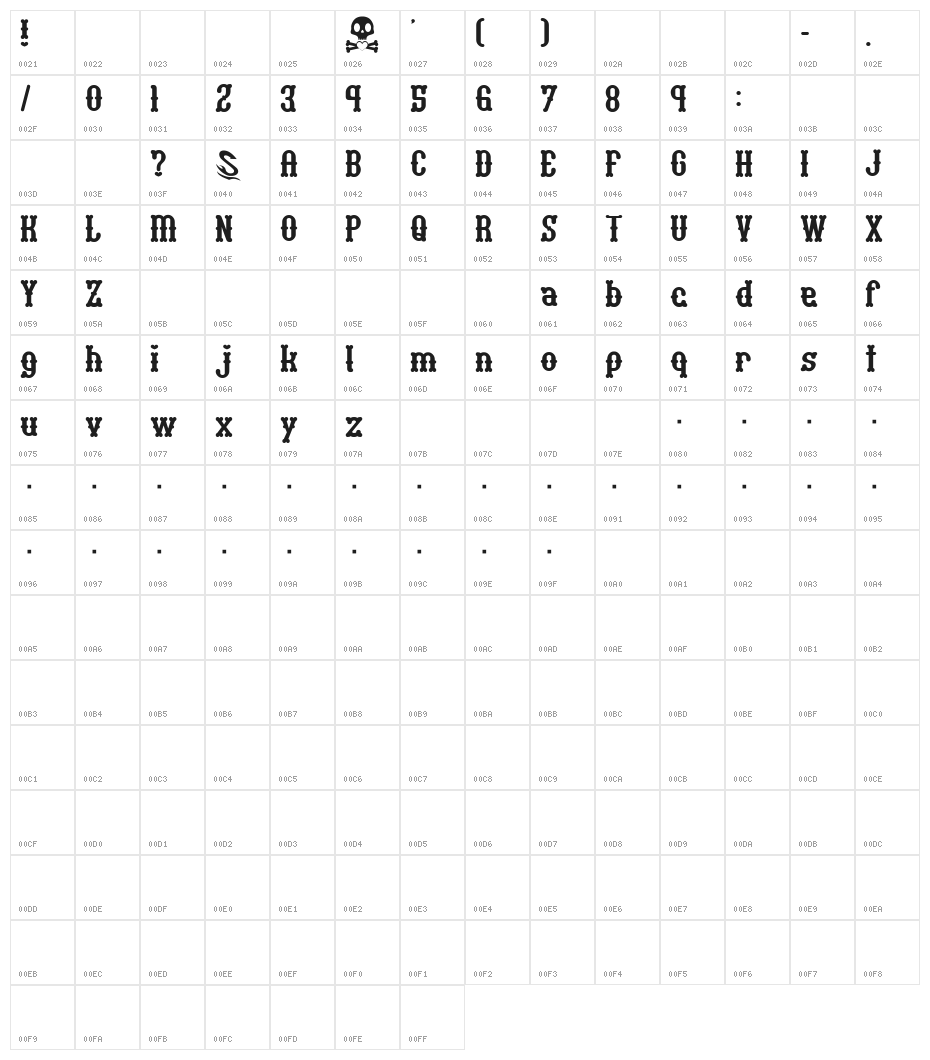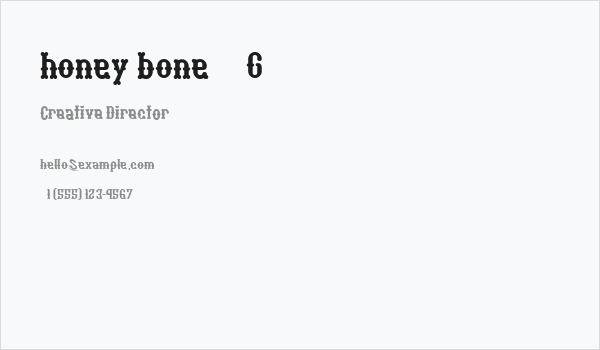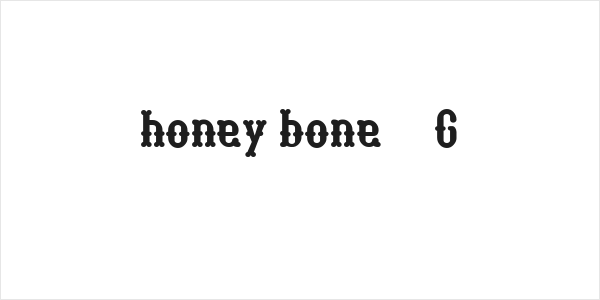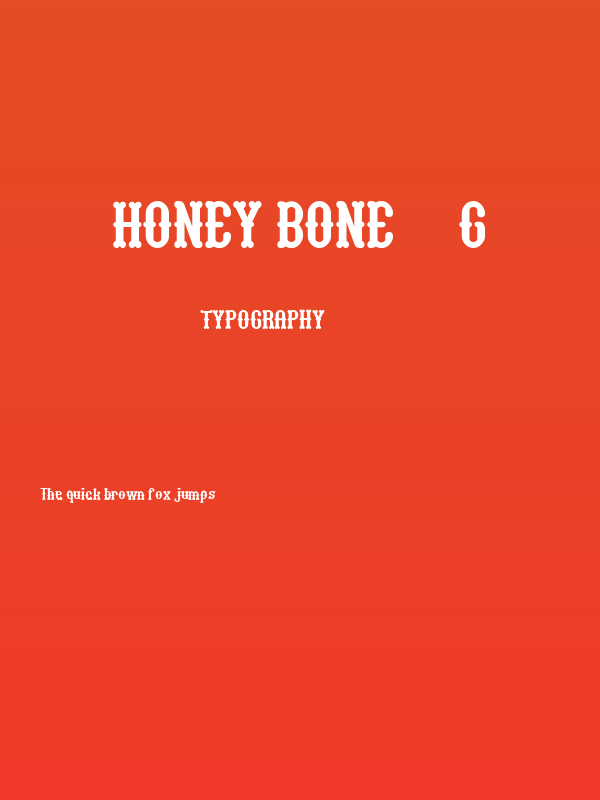
honey bone__G Font
honey bone__G Description
This font features a playful and decorative style, characterized by its unique bone-like structure. Each letter is crafted with rounded edges and distinct, bold strokes that resemble bones, giving it a whimsical and slightly gothic appearance. The uppercase and lowercase letters maintain a consistent design, with the lowercase being slightly more compact. Numbers and special characters follow the same thematic style, ensuring uniformity across all elements. The font's quirky and eye-catching design makes it suitable for creative projects that require a fun and unconventional look.
| Use Case | Headlines, Logos, Themed Events |
| Proposed Projects | Ideal for Halloween-themed designs, children's book covers, party invitations, and playful branding projects. |